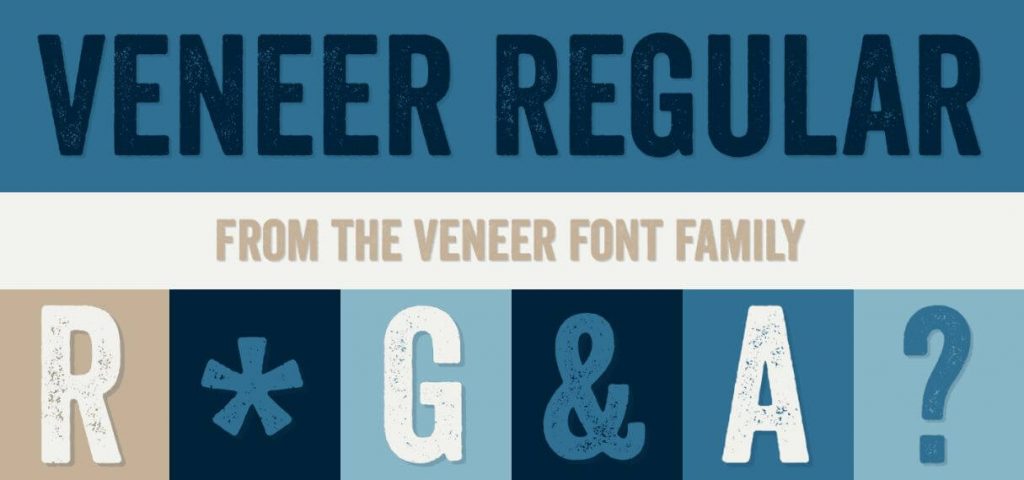
Introducing veneer font! A remarkable title in the area of typography. This is a stylish display font similar to algerian font with the aid of a yellow design studio. Rayn Martinson took the cost of designing this mighty iconic font.
Veneer Font Features
The veneer is ultimate for any variety of textual bearing on designs attractive looks like the copperplate gothic and its household contains six styles, which comprise normal, veneer two, veneer two italic, veneer three, veneer three italic, and veneer italic. Beside two funky extras that possess 38 characters!
Along with its high-grade handcrafted letters by way of a grunge appearance, It appears smooth even on a giant display.